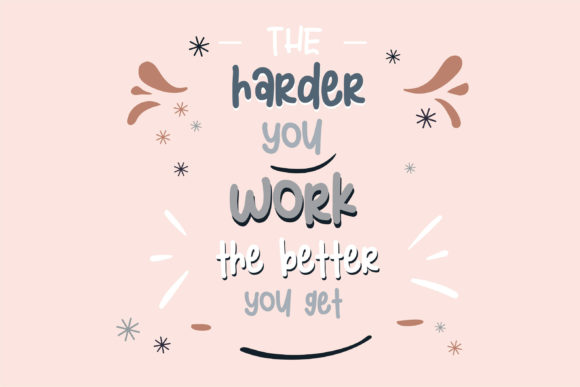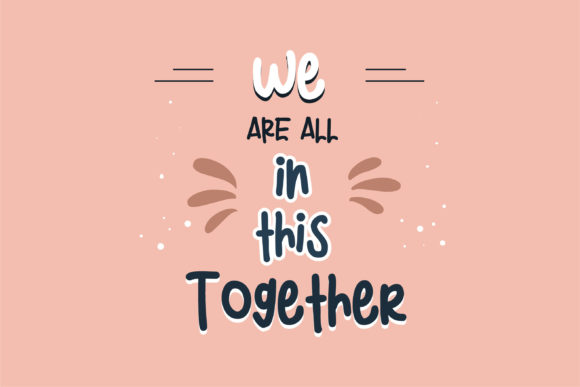
PN Telegnosis Font
db-ku.com - Script & Handwritten -- This casual print is a whimsical sans serif with a handwritten personality. It looks original and perfect for your creative projects!